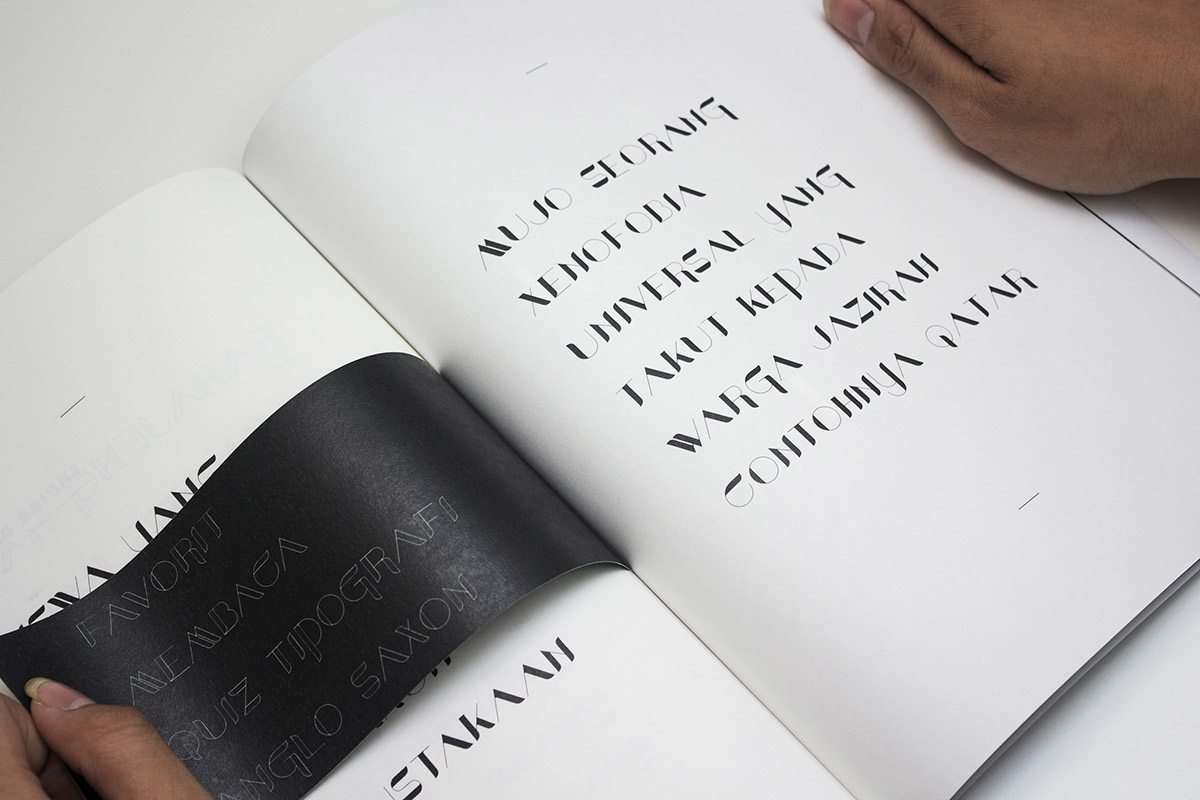
Bayang is a modern display type
created based on the form and shape
of the traditional Balinese Alphabet.
The name 'Bayang',
meaning 'shadow' in Indonesian,
was given due to the contrast
between thick and thin strokes
of the typeface which resembles
an object and its shadow.